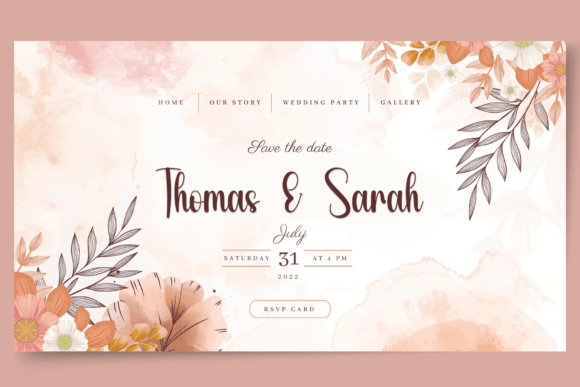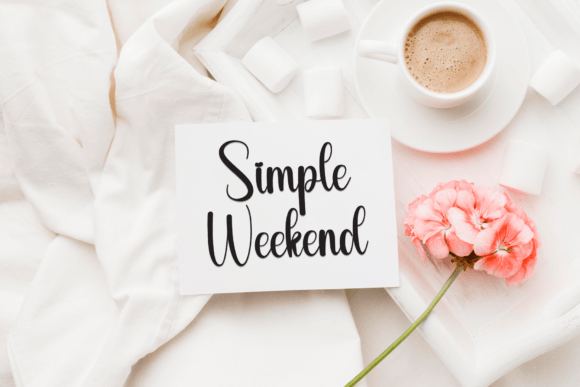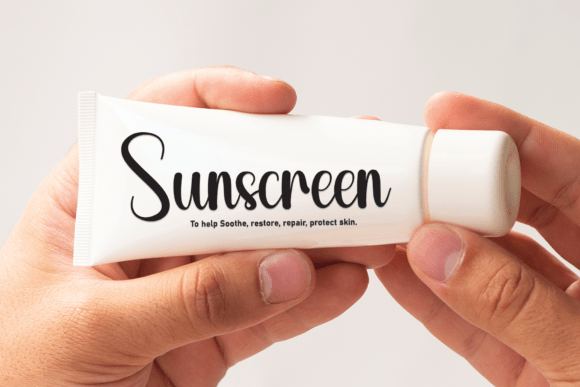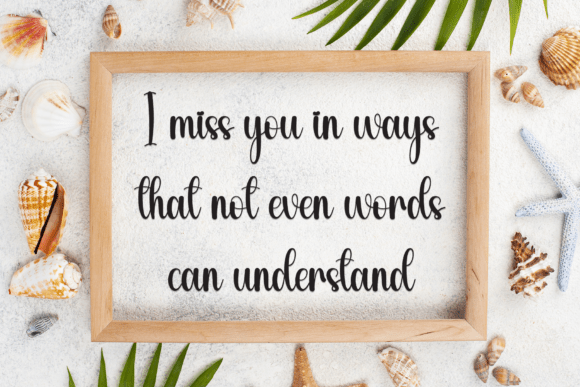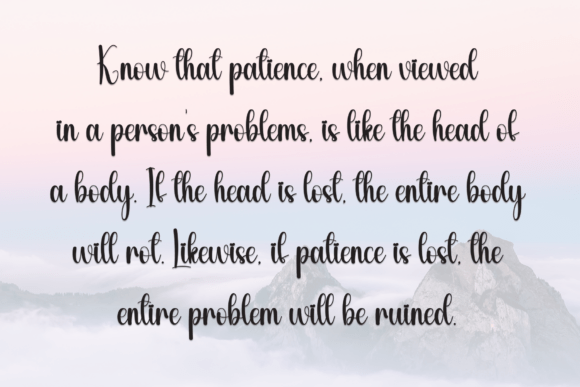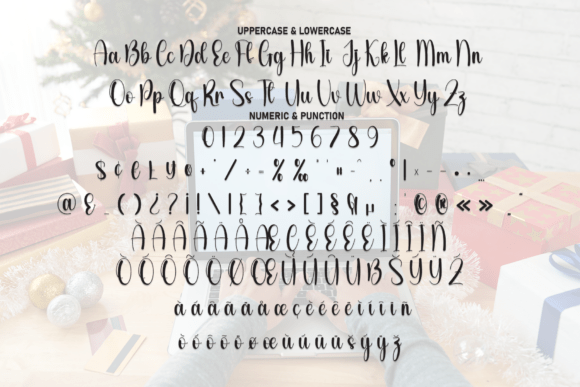
The Magic of Digital Christmas Font: A Designer’s Delight
It’s happened to the best of us: you’re working on a project, and the design is almost complete, but something’s missing. You’re scrolling through font after font, trying to find that perfect fit. I recall a particularly stressful experience when a client requested a custom wedding invitation design. I was stuck on finding the right font until I stumbled upon the charming Digital Christmas Font. It was love at first sight! ✨
As a designer, I was thrilled to dive into the world of Digital Christmas Font. Here’s what I think:
- ✅ The font’s endearing allure brings a captivating touch to any creative venture.
- ✨ Its whimsical design seamlessly infuses a dash of merriment and playfulness into every design.
- 🎉 The font is handcrafted with warmth and congeniality, making it perfect for weaving magical wedding invites or endearing greeting cards.
However, I did notice a few quirks:
- 🤔 Some characters may appear a bit cramped at smaller font sizes. Make sure to adjust the tracking to achieve the desired look.
- ⚠️ The font might not be the best fit for body text due to its display nature. Stick to headings, titles, or short paragraphs for maximum impact.
- Experiment with OpenType features, such as ligatures and stylistic alternates, to add a personal touch to your design.
The Story Behind Digital Christmas Font
Digital Christmas Font was crafted with love by a talented type designer who aimed to capture the warmth and magic of the holiday season. Inspired by vintage Christmas cards and festive decorations, this font embodies the spirit of joy and playfulness. Whether you’re designing wedding invites, holiday cards, or festive graphics, Digital Christmas Font is sure to bring a touch of merriment to your creations.
| Font Name | Digital Christmas Font |
| What type of projects is Digital Christmas Font best suited for? | Digital Christmas Font is perfect for designing wedding invites, holiday cards, festive graphics, and other creative projects that require a touch of whimsy and playfulness. |
| Is Digital Christmas Font available in different styles or variations? | Currently, Digital Christmas Font is available in a single style. However, the font’s OpenType features and glyphs offer a range of stylistic options to experiment with. |